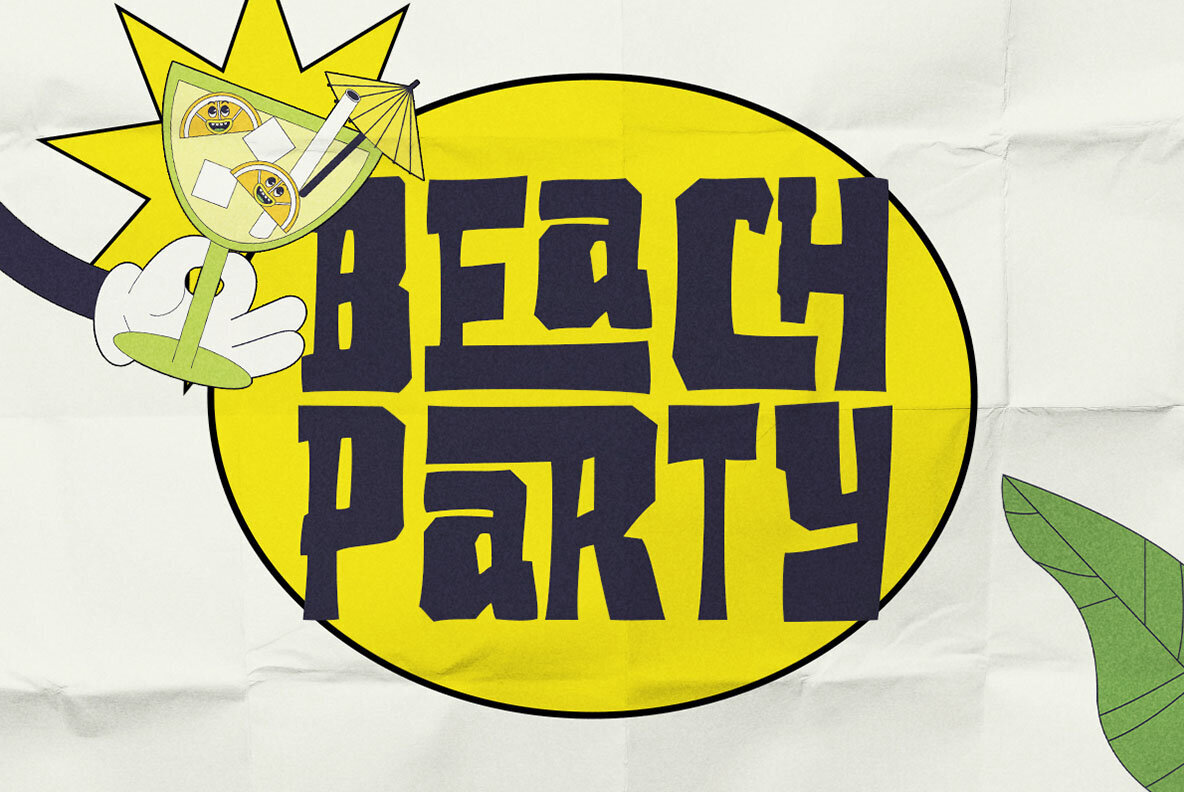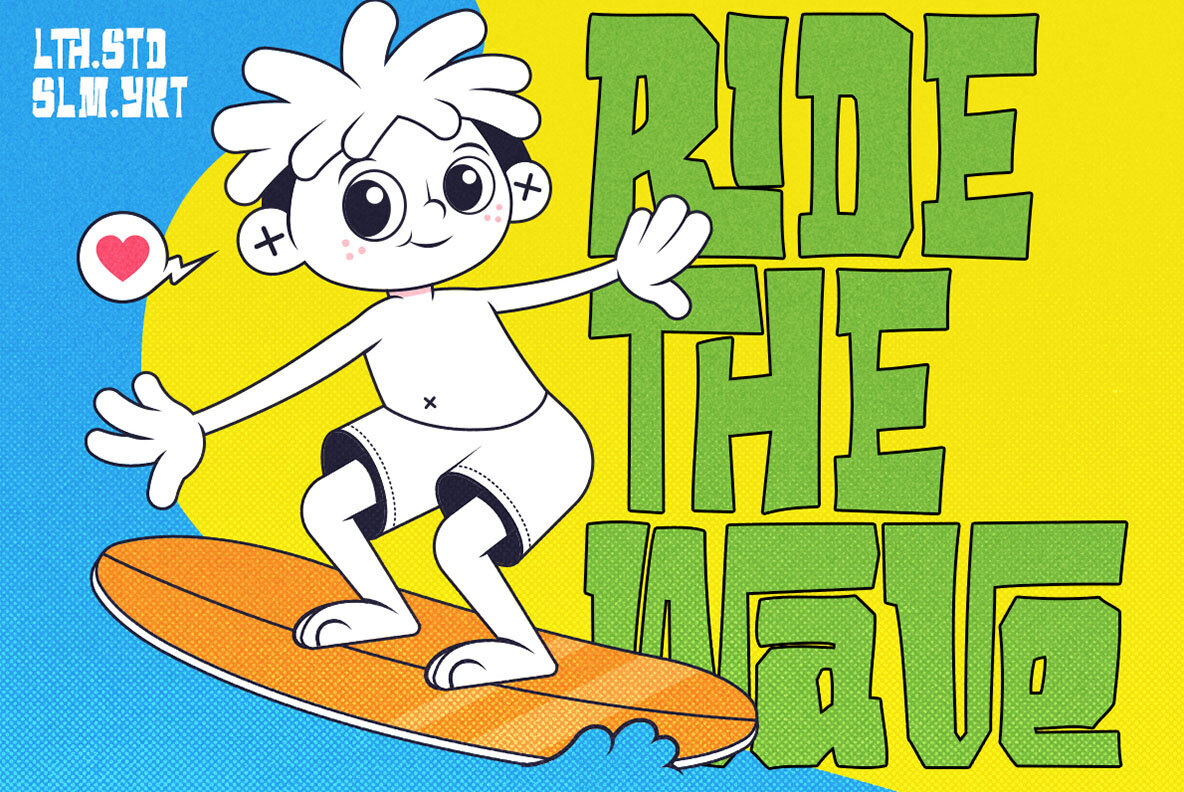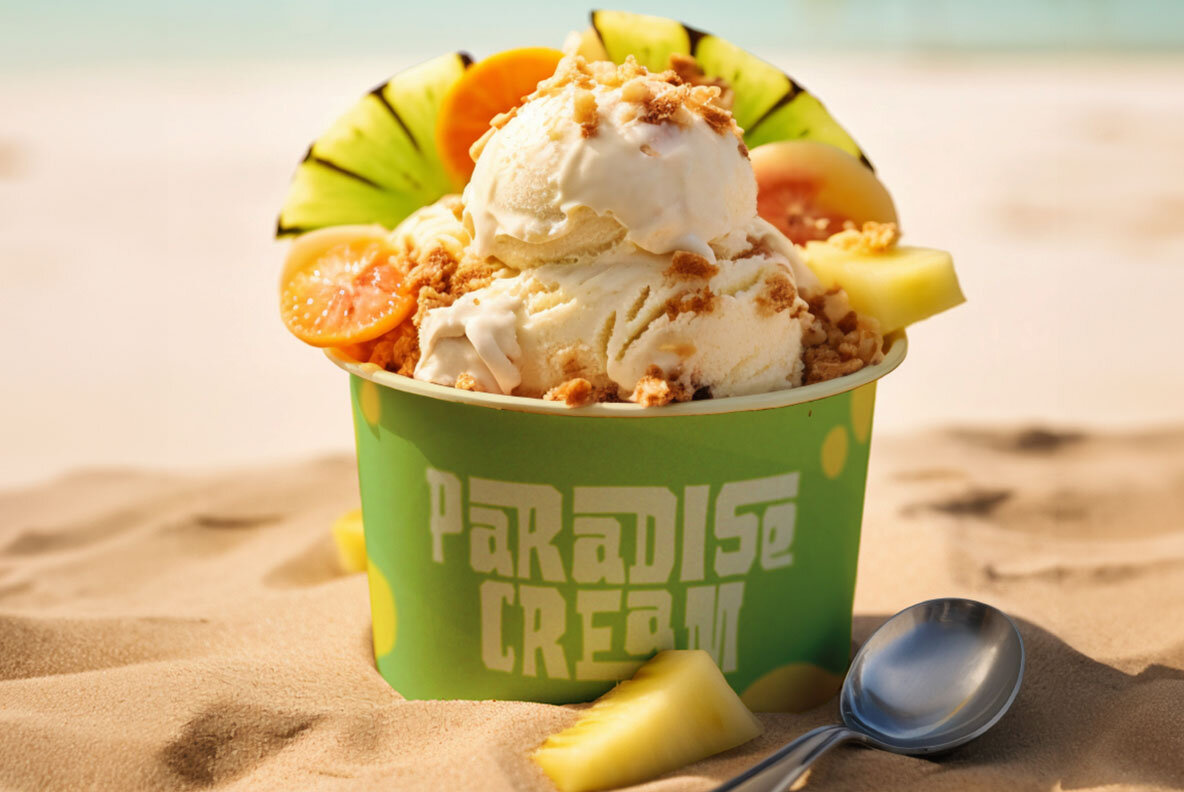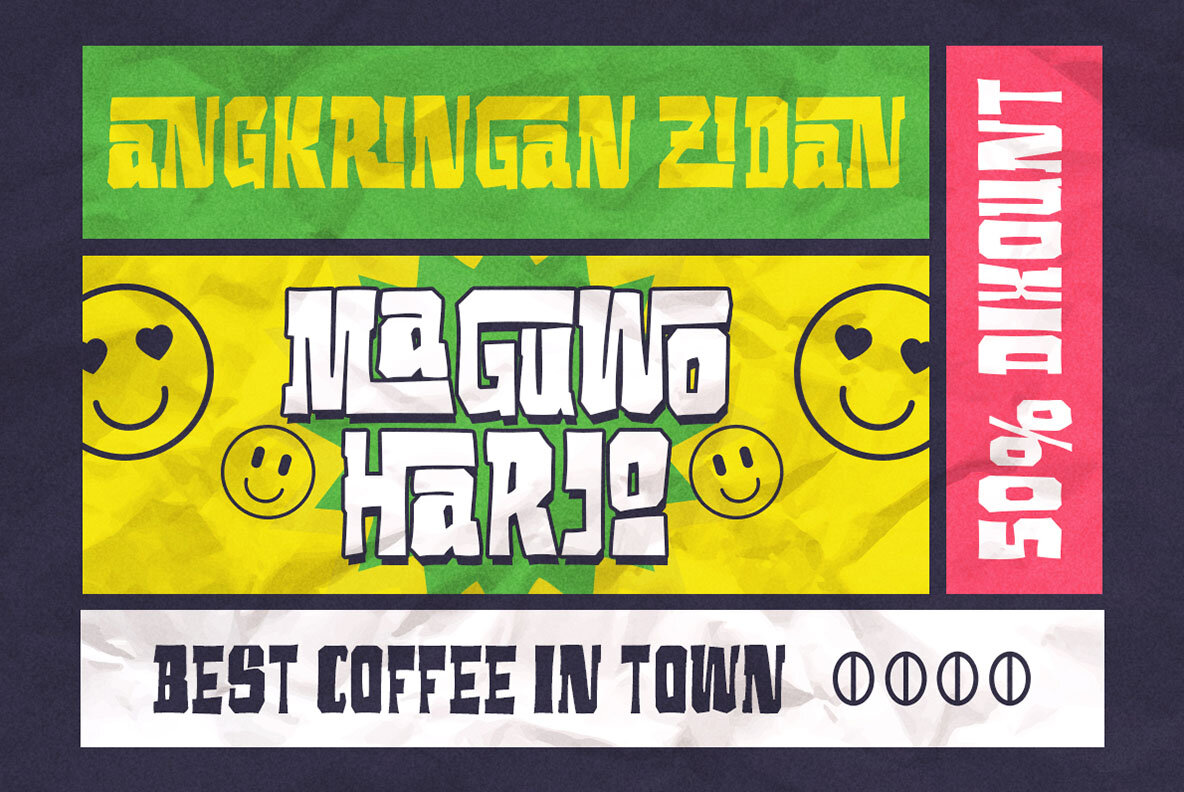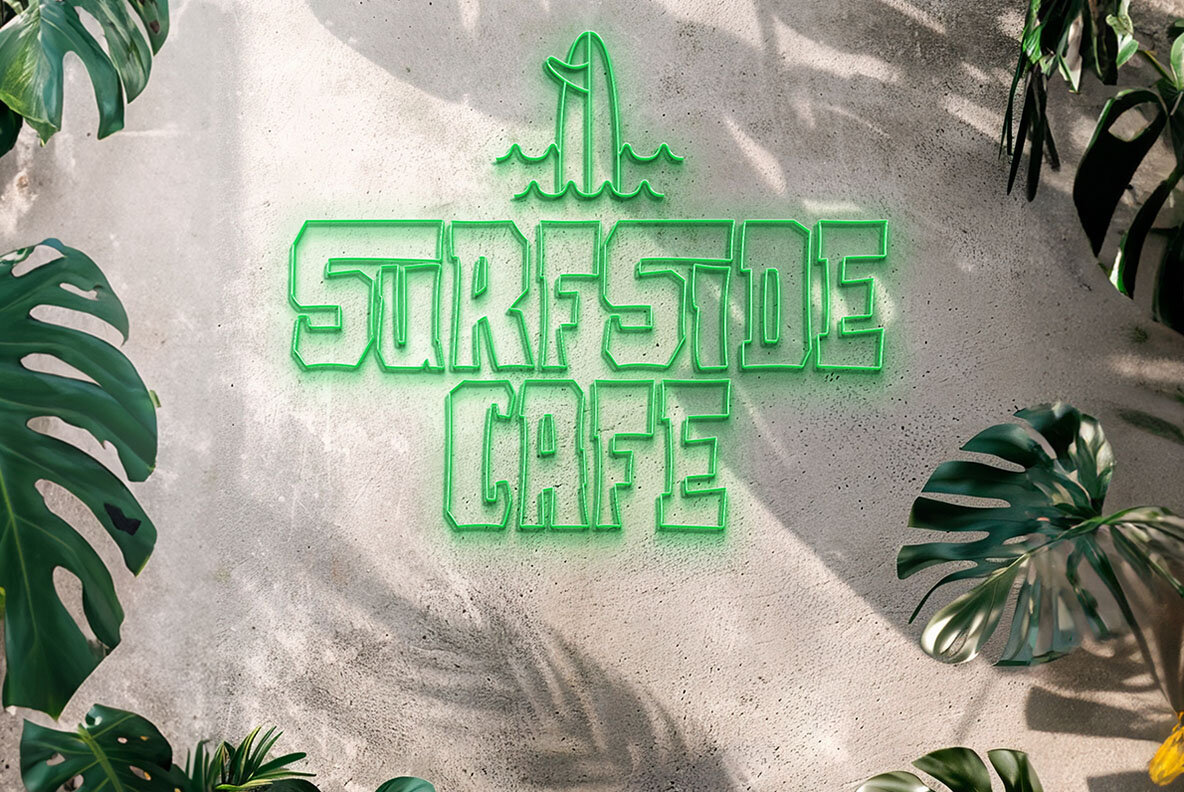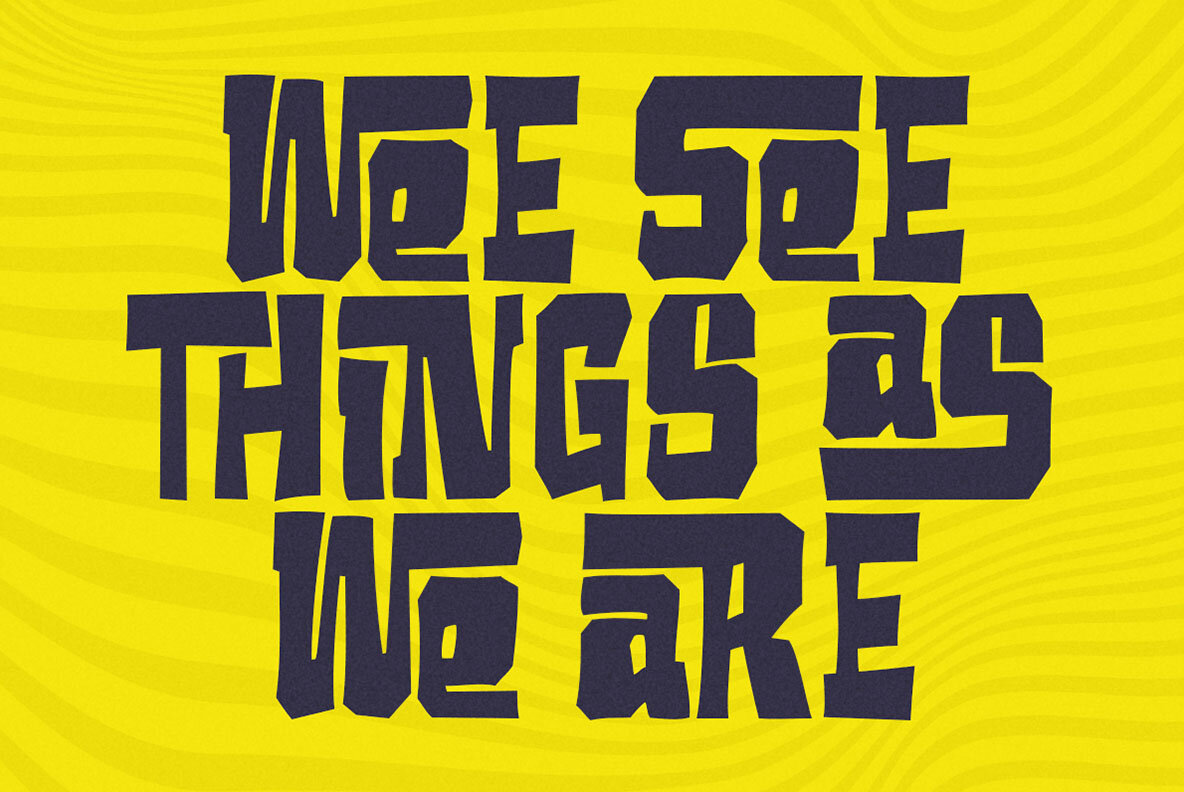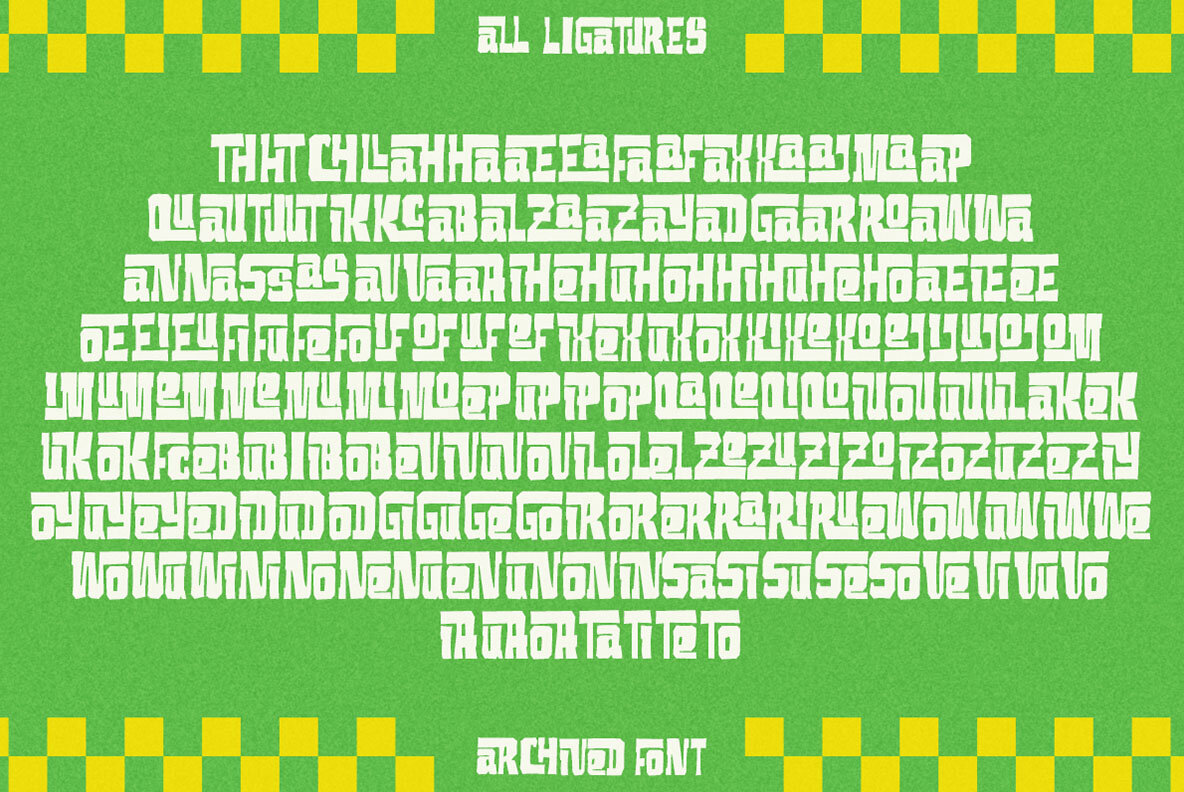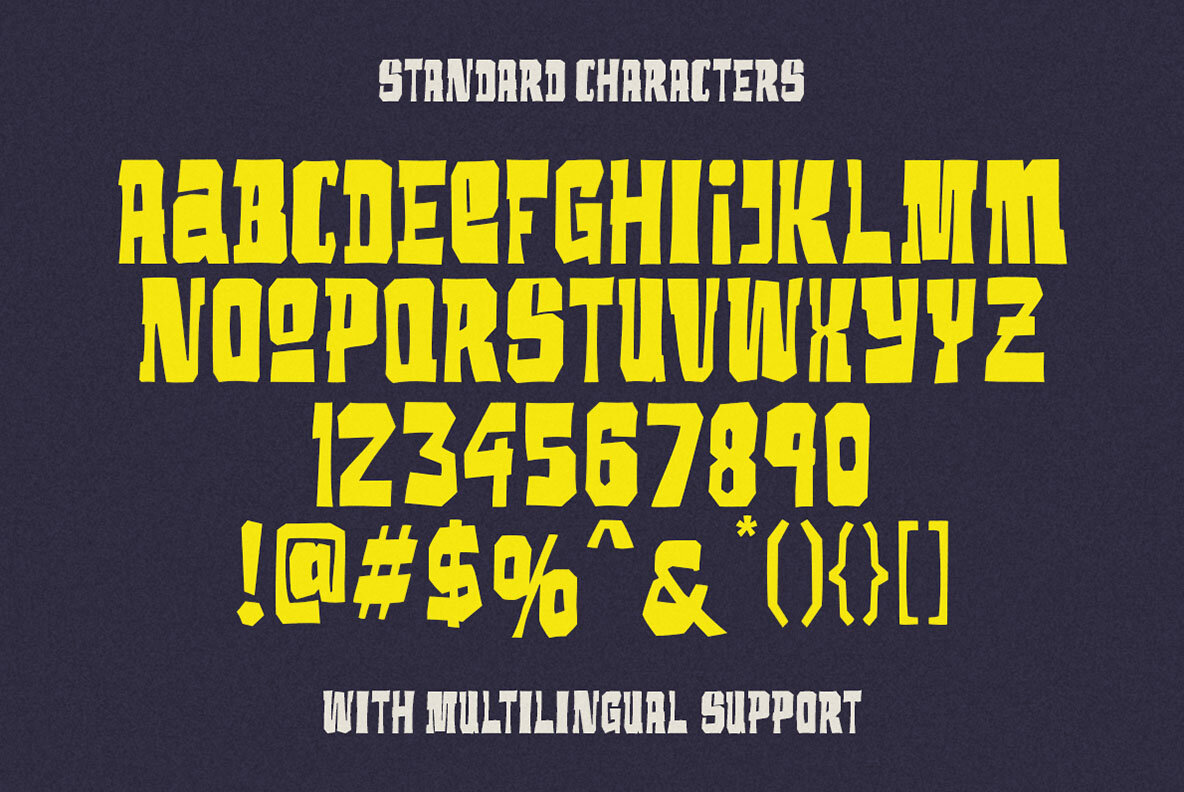
Archived Font
Archived Regular
Archived is a ligature display font with a unique letterform. This font will bring you back to retro feel. This font is perfectly made to be applied especially in logos, and the other various formal forms such as invitations, labels, logos, magazines, books, greeting / wedding cards, packaging, fashion, make up, stationery, novels, labels or any type of advertising purpose. We highly recommend using a program that supports OpenType features and Glyphs panels like many of Adobe apps and Corel Draw, so you can see and access all Glyph variations.